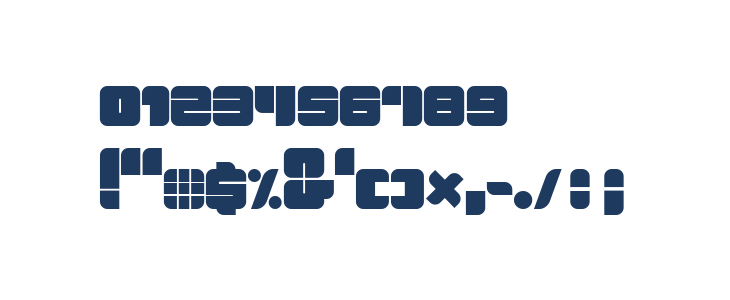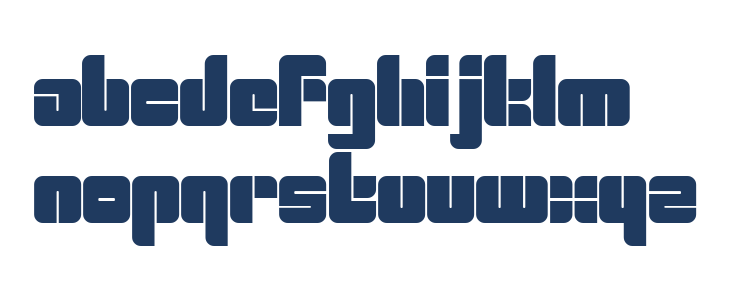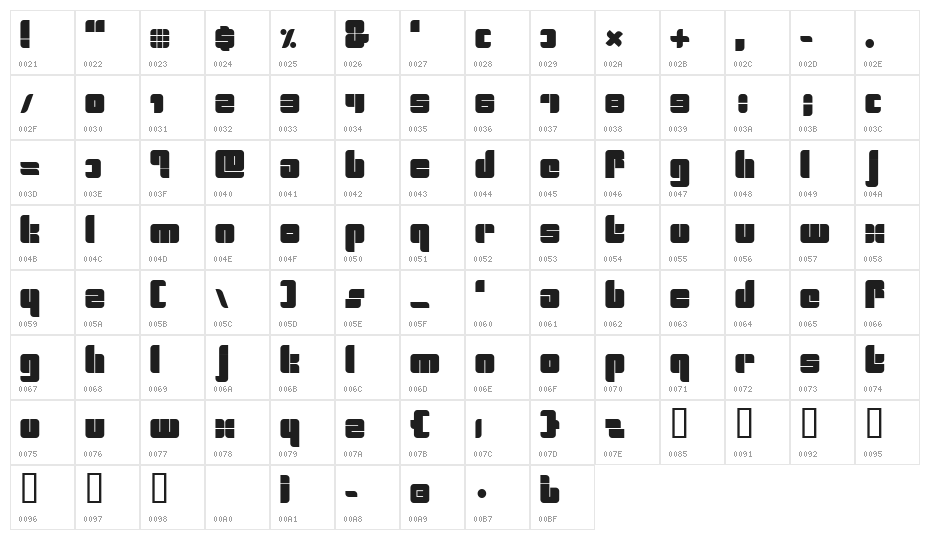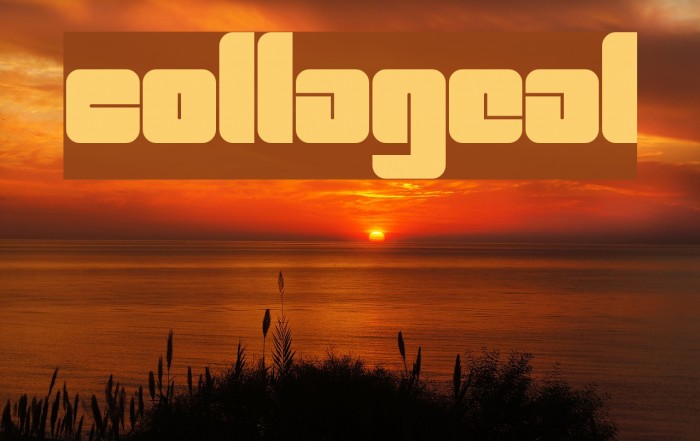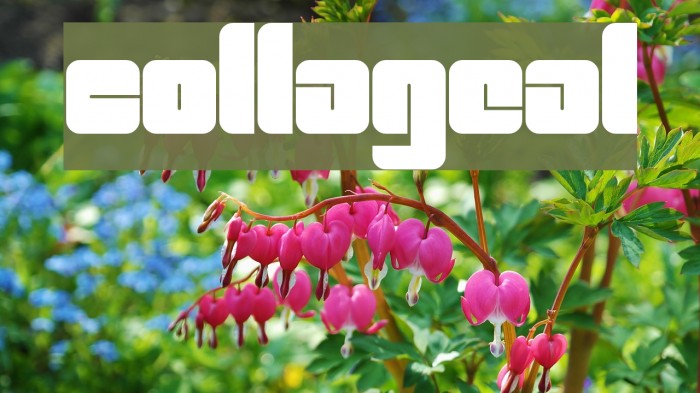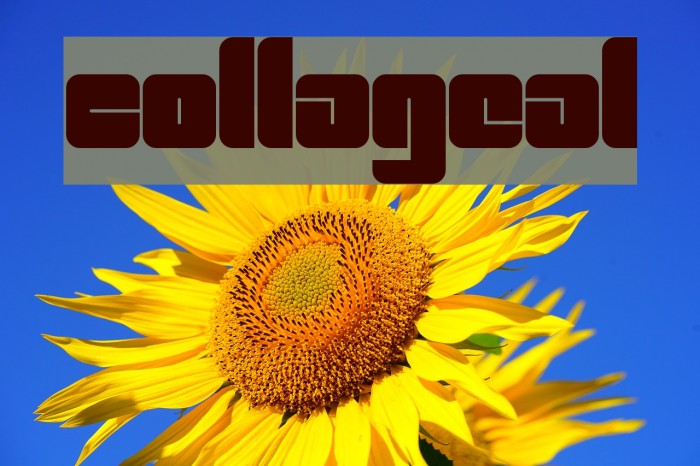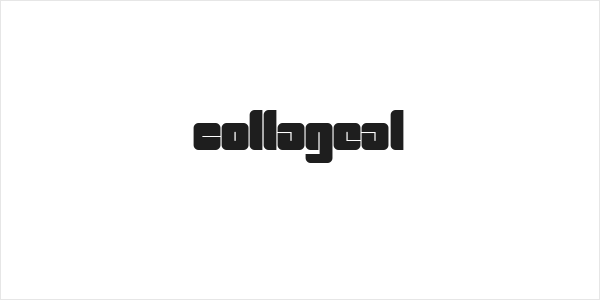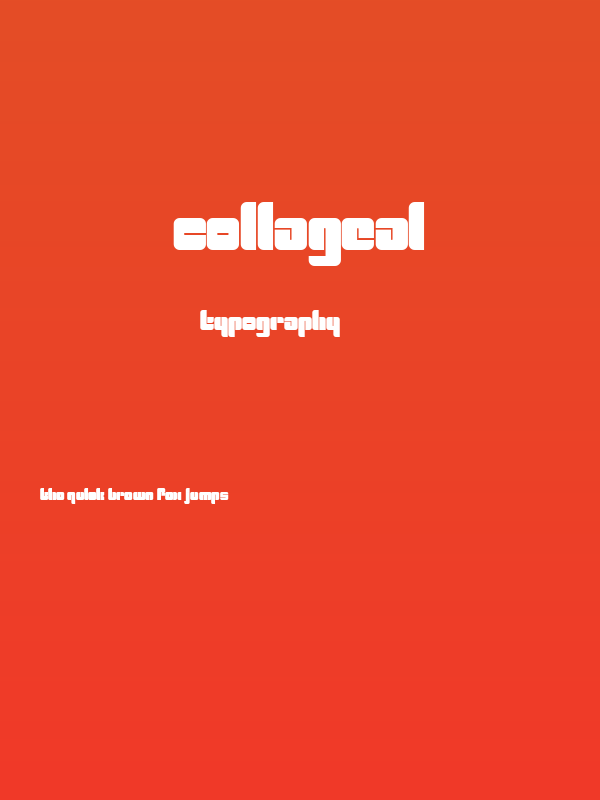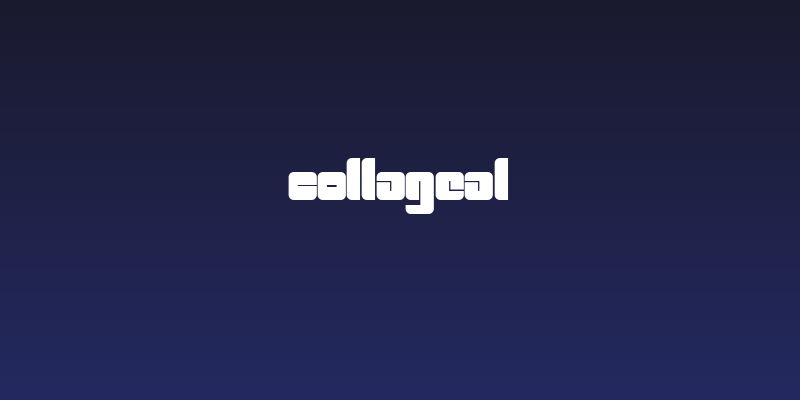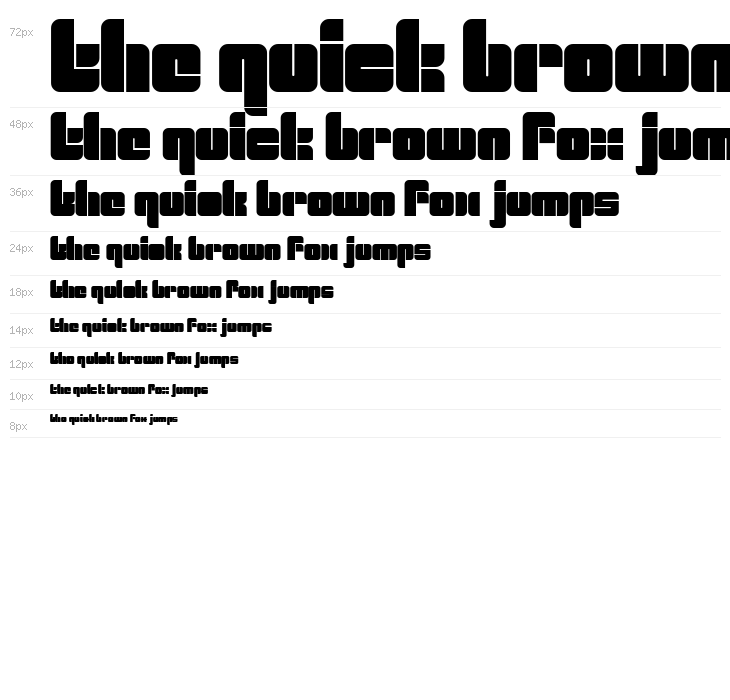
CollageAL Font
CollageAL Description
This font features a bold, geometric design with a strong emphasis on rounded shapes and thick lines. The characters are constructed with a modular aesthetic, giving them a futuristic and digital feel. The uniformity in stroke width across all characters creates a cohesive and striking appearance. The font's design is highly stylized, with each letterform appearing as if it is composed of interconnected blocks, enhancing its modern and innovative look. The numbers and special characters maintain the same bold and geometric style, ensuring consistency throughout the typeface.